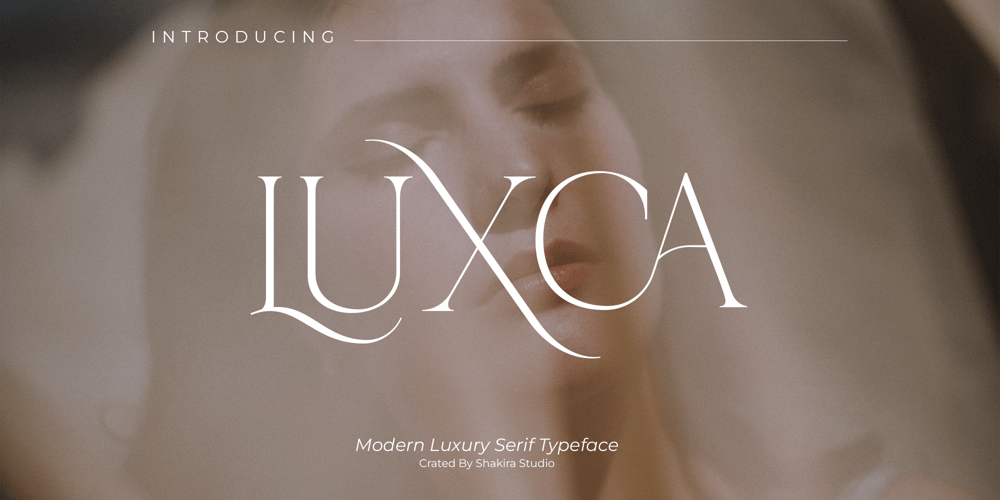
Luxca
Luxca font
Luxca Font Family was designed by Idhham Cholid Rikzano Yahya and published by Shakira Studio. Luxca contains 2 styles and family package options. Introducing Luxca, a font that epitomizes modern luxury within the serif category. This typeface seamlessly blends contemporary sophistication with timeless elegance, making it the perfect choice for designers seeking to infuse their projects with an air of opulence and refinement. With Luxca as your font of choice, you have at your fingertips a versatile tool that can elevate a wide range of design applications. Whether it’s high-end branding, editorial layouts, invitations, or packaging.